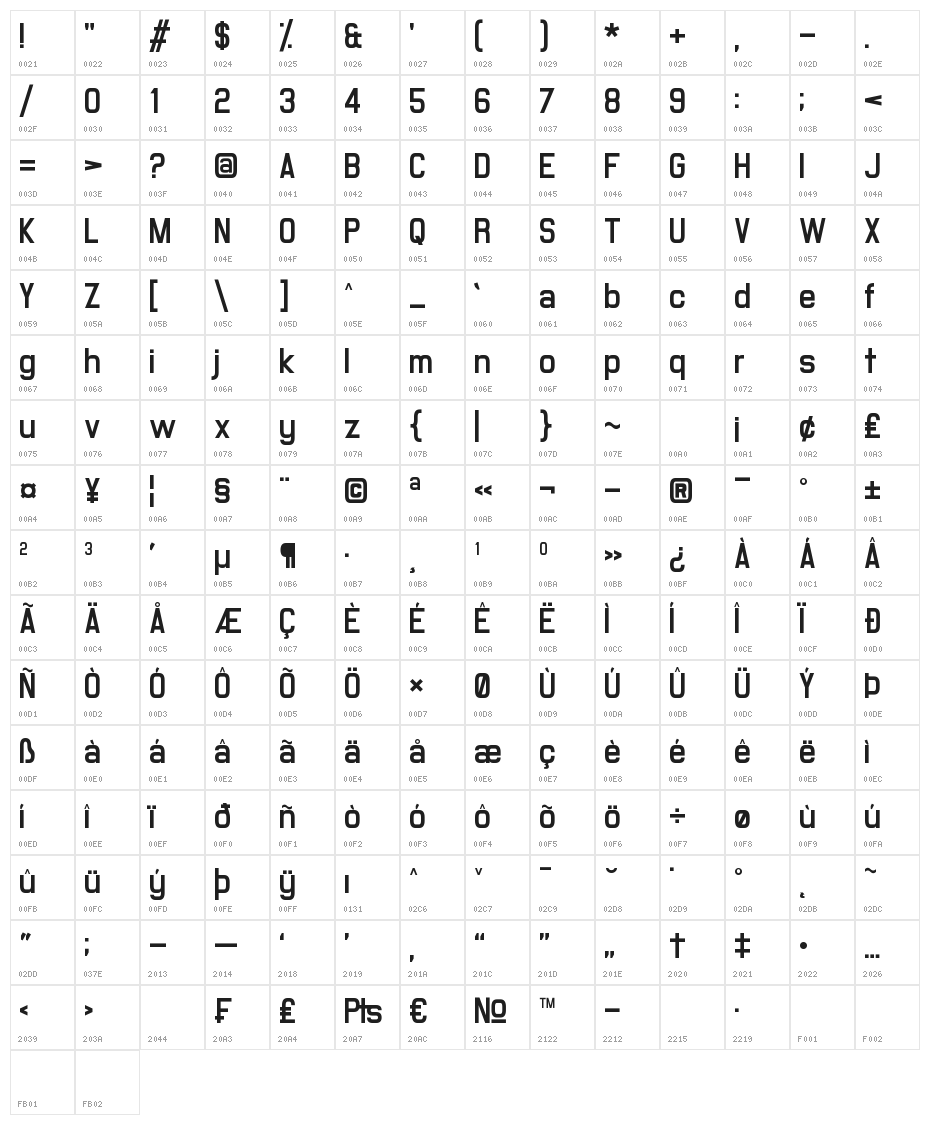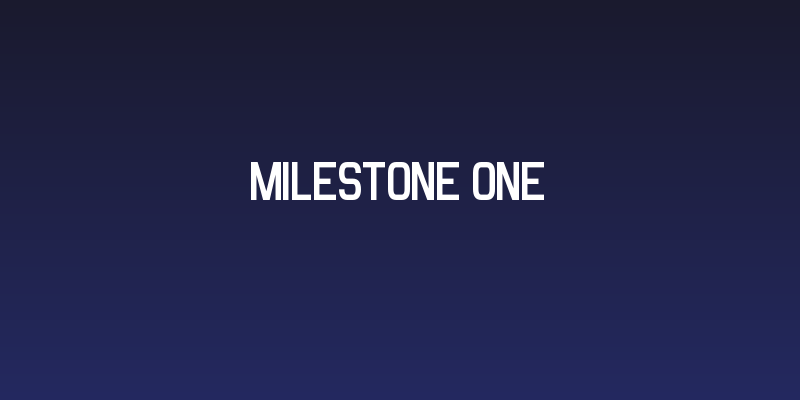
Milestone One Font
Milestone One Description
This font features a bold and modern sans-serif design with clean, geometric lines and a strong presence. The uppercase and lowercase letters maintain a consistent height and width, creating a uniform appearance. The numerals are clear and easily distinguishable, while the special characters are designed to complement the overall style. The font's structure is straightforward, with minimal decorative elements, making it highly legible and versatile for various applications.
| Use Case | Headlines, Logos, Digital interfaces |
| Proposed Projects | Ideal for branding, advertising, headlines, and digital interfaces where clarity and impact are essential. |